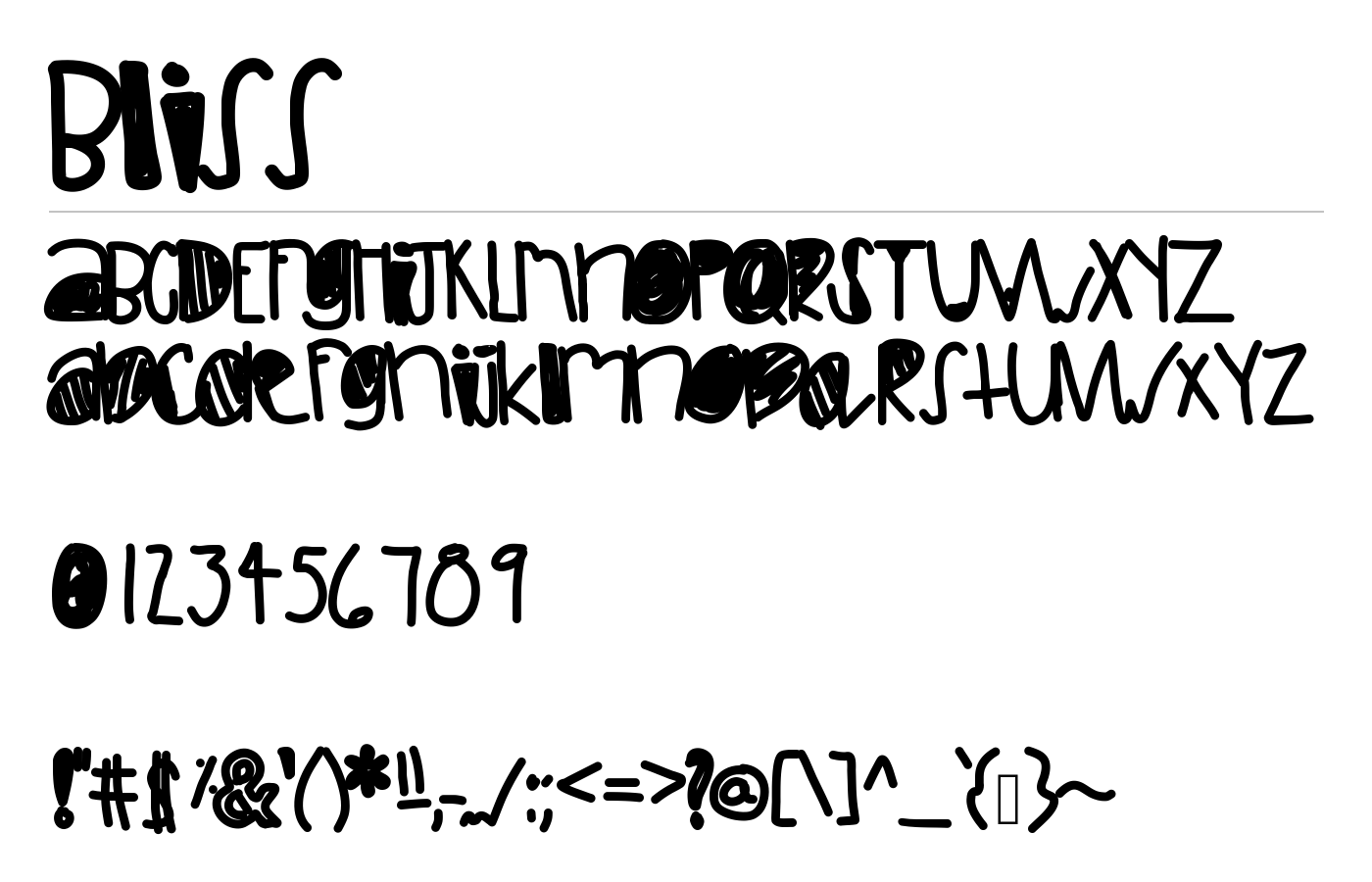
Bliss is a playful and quirky handwritten font with an uneven, organic style that feels friendly and informal. Its tall, narrow letterforms combined with bold, irregular strokes give it a unique character perfect for youthful, creative designs or casual branding. This font works well in logos, posters, and any setting where a fun, distinctive personality is needed to stand out.
Bliss Font
About Bliss Font